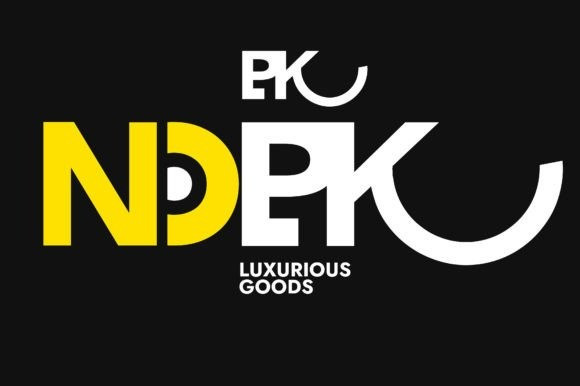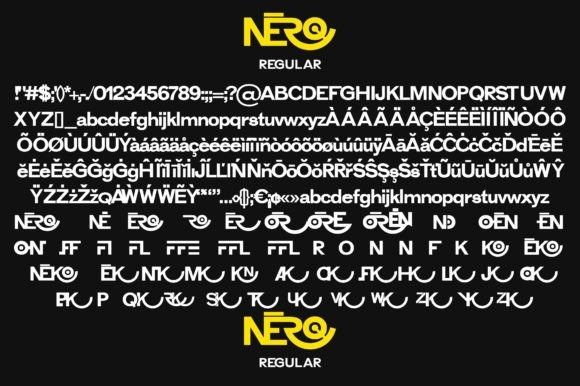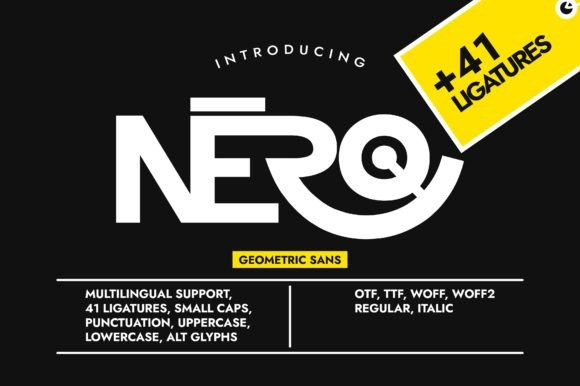
Nero Sans Font
Nero Sans Font is a clean, rich, and geometric sans serif typeface. The font is very powerful because it includes alternates and premade ligatures to enrich your creative ideas to maximum levels. Use it in your creation and notice how it take them to next level!